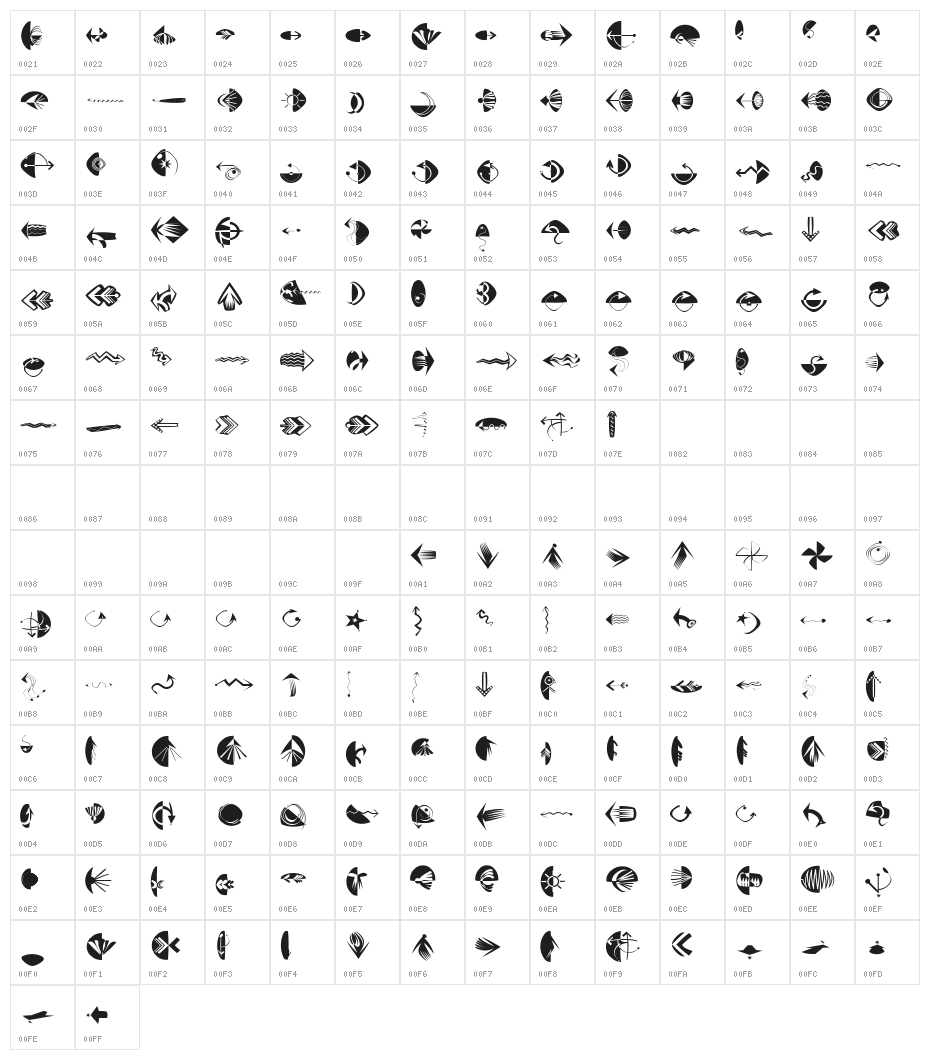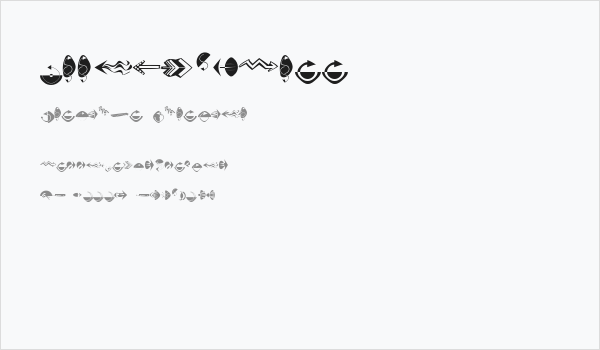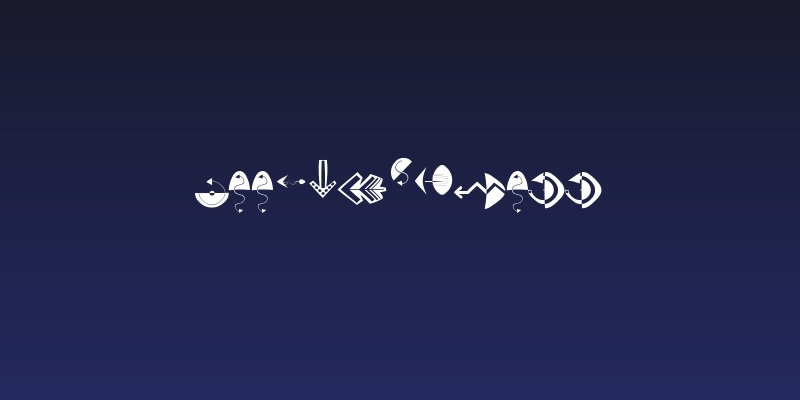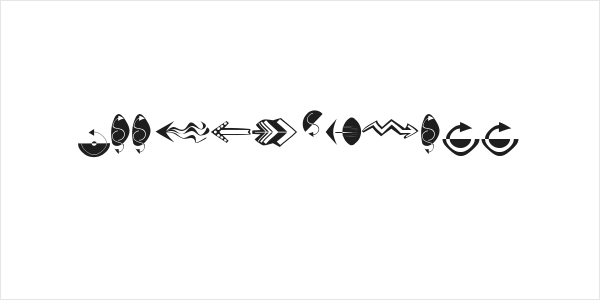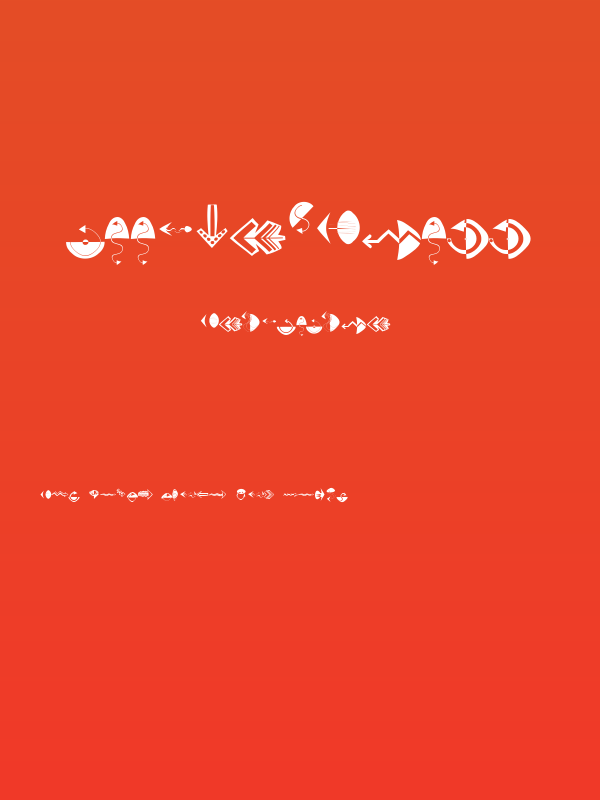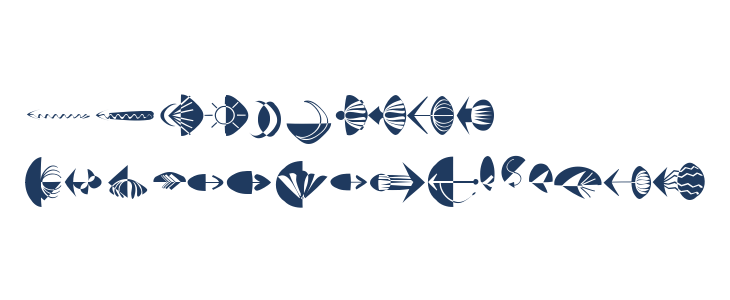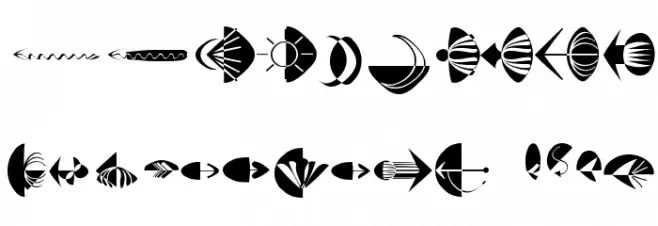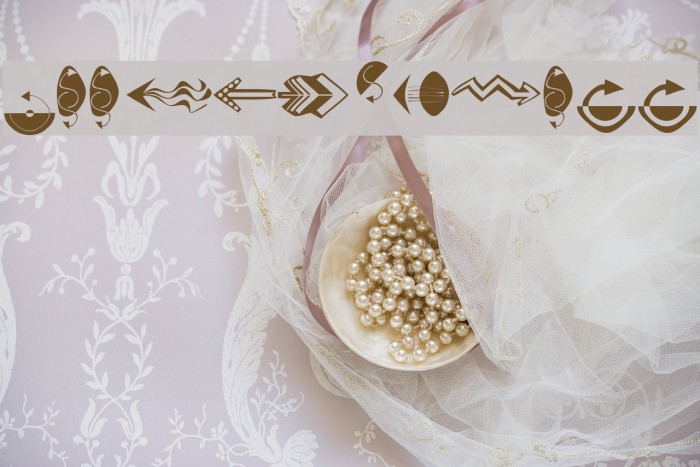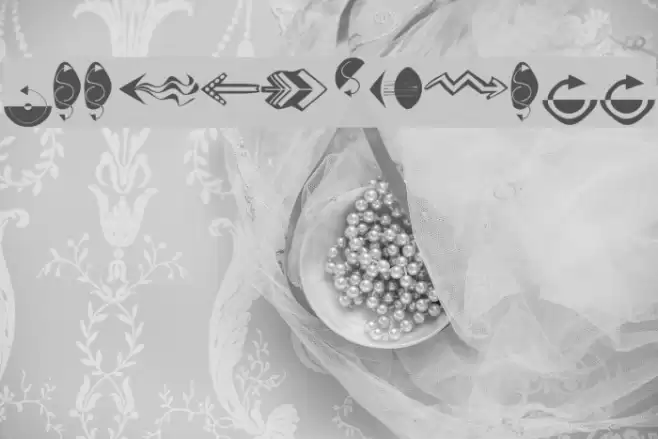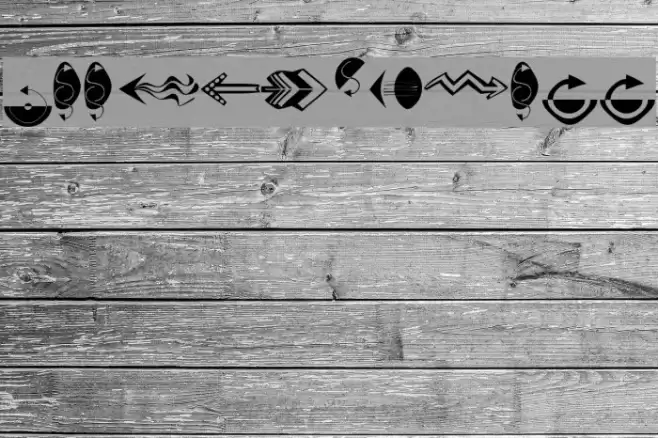
Arrowy-Three Font
Arrowy-Three Description
A highly decorative and abstract font composed entirely of unique arrow-themed glyphs, each character featuring bold geometric shapes, dynamic lines, and varying arrow directions. The style is playful and visually striking, with strong contrasts and intricate details, making each letterform distinct and expressive.
| Overall Style | Decorative, Abstract, Modern |
| Use Case | Logos, Headlines, Posters, Artistic projects |
| Proposed Projects | Infographics, posters, signage, branding for creative industries, editorial design, digital art, and event invitations. |